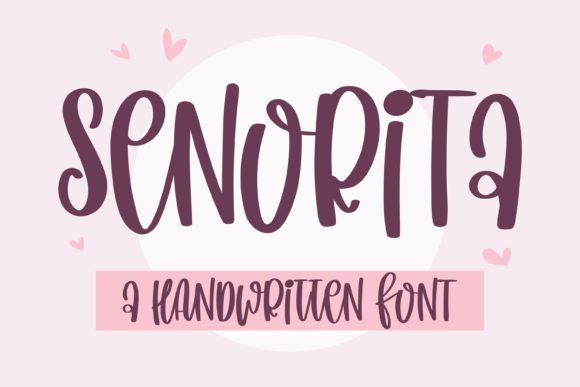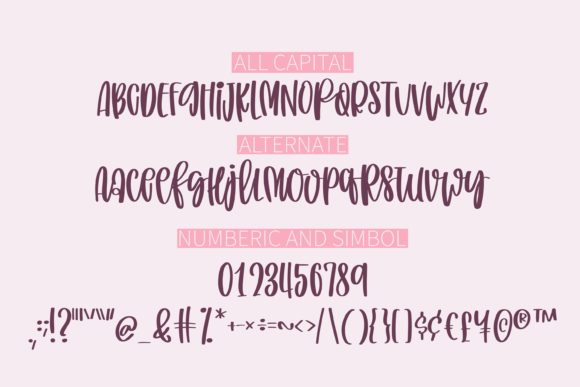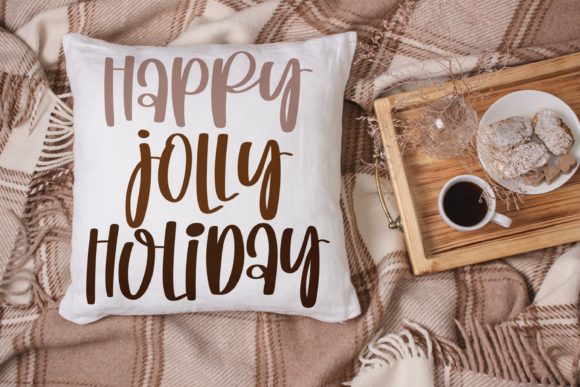
About Senorita Font
Senorita is a sweet and quirky handwritten font. Get inspired by its smart style and use it to create stationary art, eye-catching social media posts, and much more! This font is PUA encoded which means you can access all of the glyphs and swashes with ease!